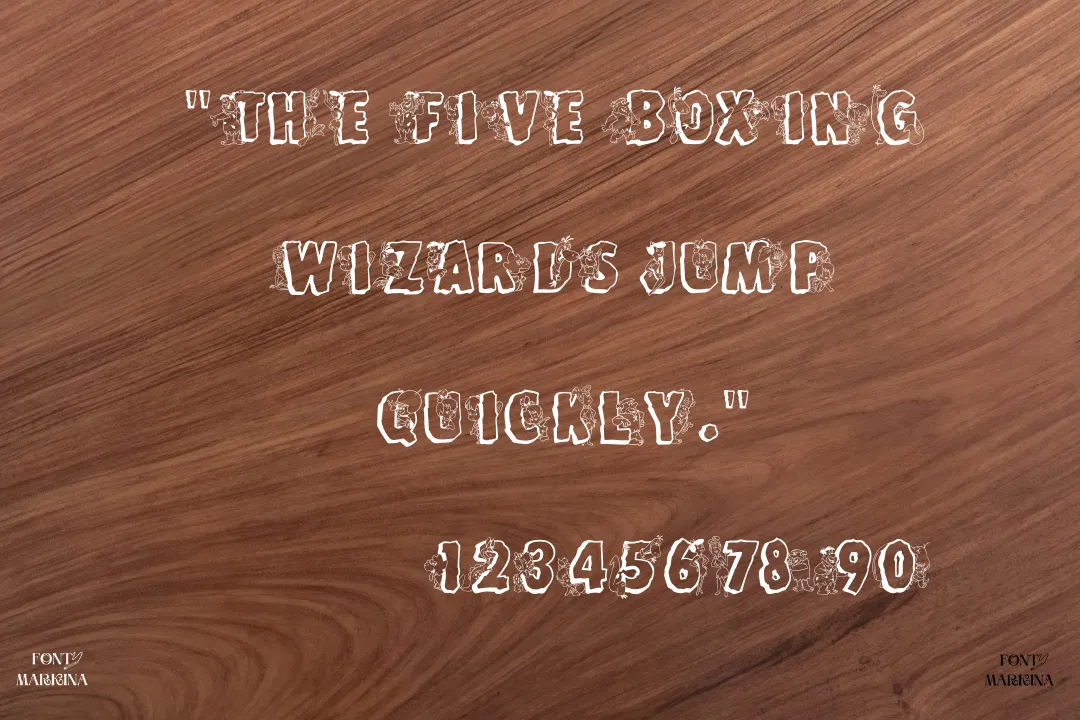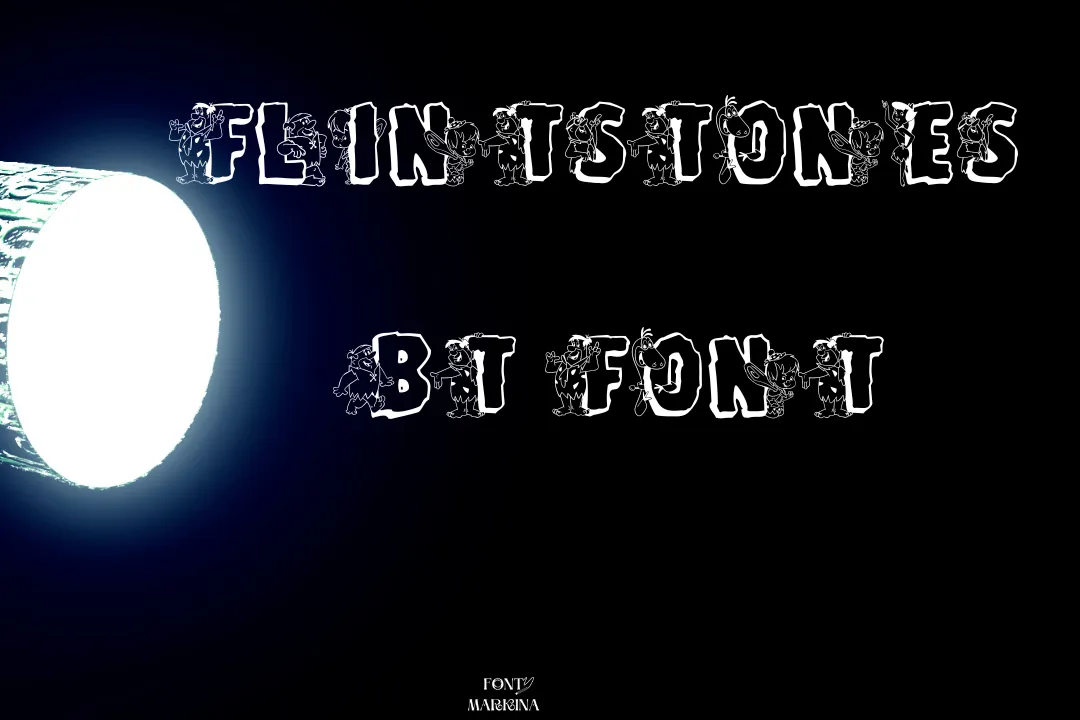
The Flintstones BT Font is an attractive texture designed by a well-known graphic designer named Peter S. Bryant and is under the category of the fancy texture family. It has a TrueType font typeface. This charming typeface enhances your exquisite creations.
Uses of Flintstones Bt Font
You may use this typeface for a mixture of projects thanks to its vast texture family. This font is ideal for a variety of tasks, including creating social media posts, banners, logo designs, ads, and more. It is appropriate for CSS and adobe photoshops.
You can use its online generator tool to reclaim all of your basic textures into a chic and contemporary shape. As a designer, you must select the ideal typeface for each of your needs. It is ideal for card designs like birthday cards, invitation cards, and business cards. In a concise period after this typeface was released in the font market, it became highly popular.
Flintstones Bt Font View
What type of font is Flintstones BT Font?
It is under the category of the fancy texture family. It has a TrueType file format. This charming typeface enhances your exquisite creations.
Where can I utilize the Flintstones BT Font?
You can utilize this outstanding texture for multiple purposes, such as printing, logo designs, social media post banners, and much more projects.
Who is the designer of Flintstones BT Font?
The Flintstones BT Font is an attractive texture designed by a well-known graphic designer named Peter S. Bryant.